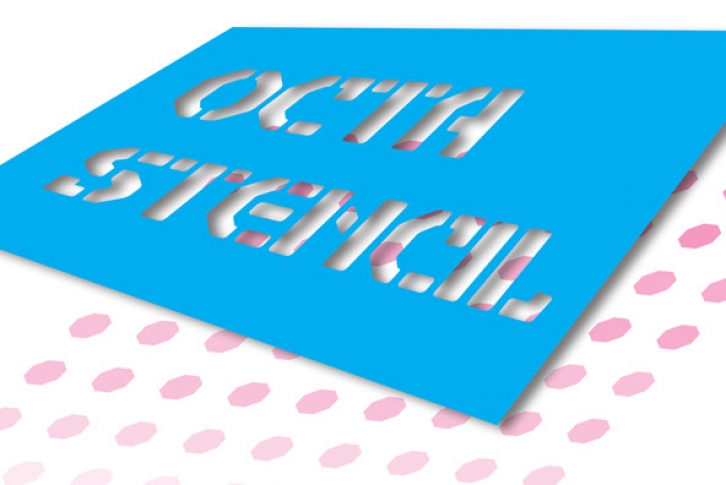
Octa Stencil fonts are primarily intended for heading, display and decorative use. A close relative to Alert, Octa is angular by its structure but soft-outlined typeface with modern industrial strength expression. Octa Stencil consists of two weights of complete characters.